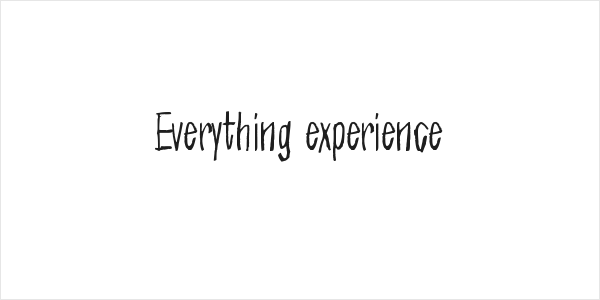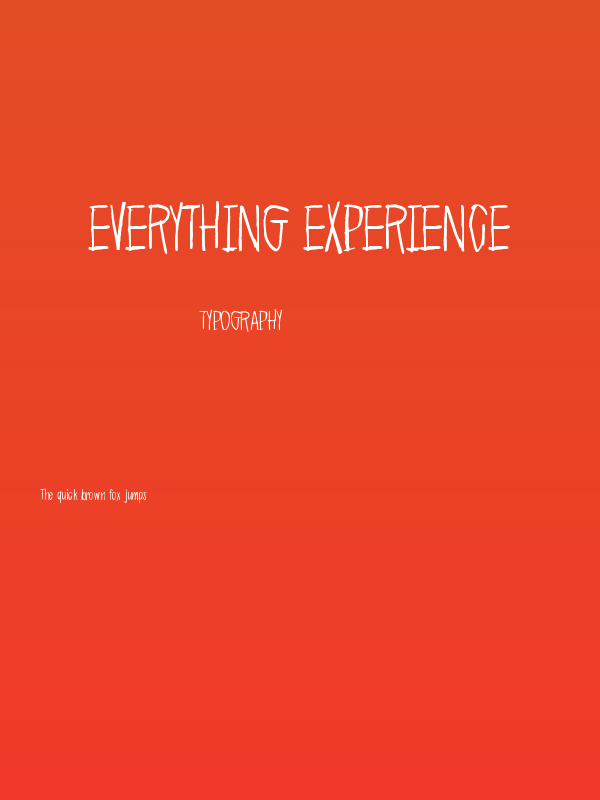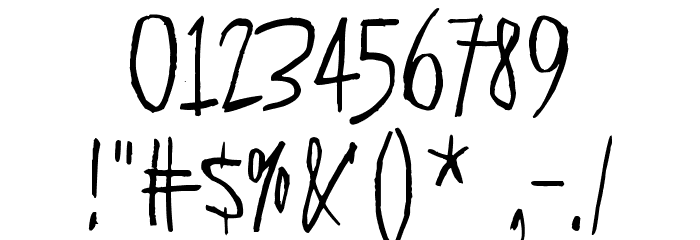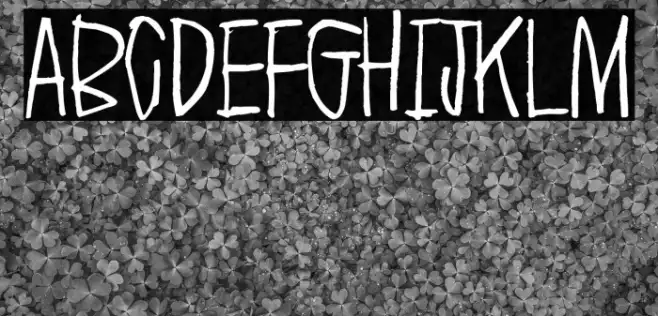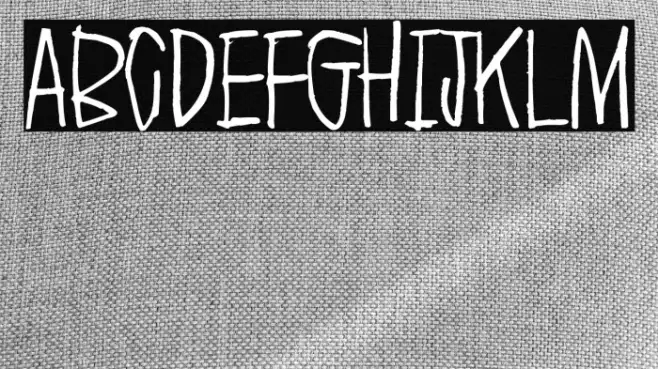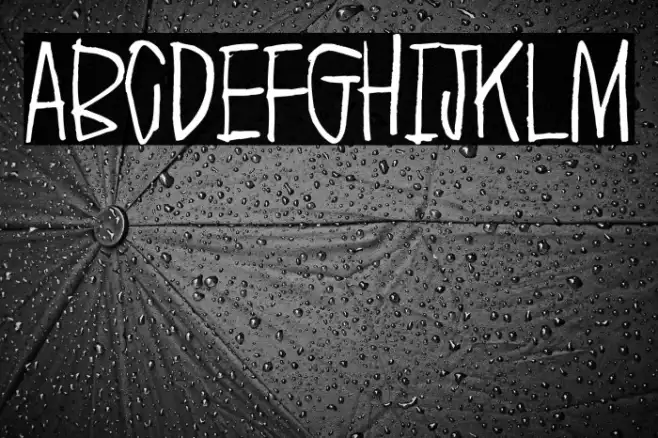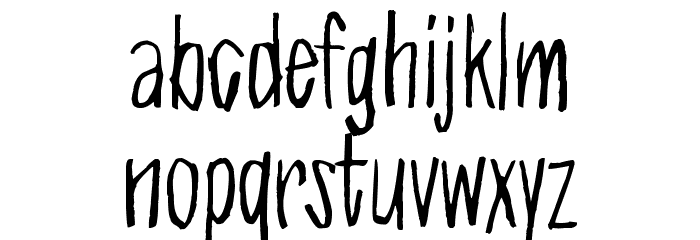
Everything experience Font
Everything experience Description
This font features a hand-drawn, organic style with a playful and informal appearance. The letters are uneven and slightly irregular, giving it a casual and approachable feel. The strokes are varied in thickness, adding to the handwritten aesthetic. The uppercase and lowercase characters maintain a consistent style, with a slight slant that adds dynamism. The numerals and special characters follow the same design principles, ensuring a cohesive look across all glyphs. This font is ideal for projects that require a personal touch or a creative, artistic vibe.
| Proposed Projects | Ideal for greeting cards, children's books, creative posters, and personal branding. |